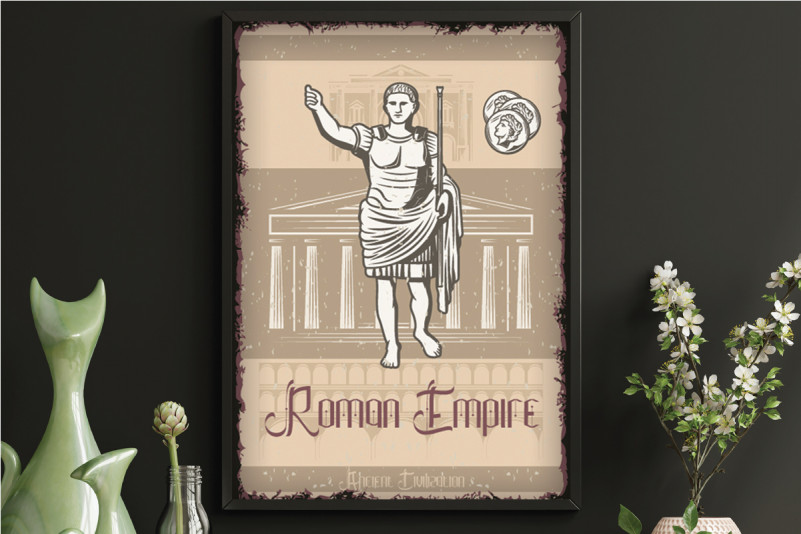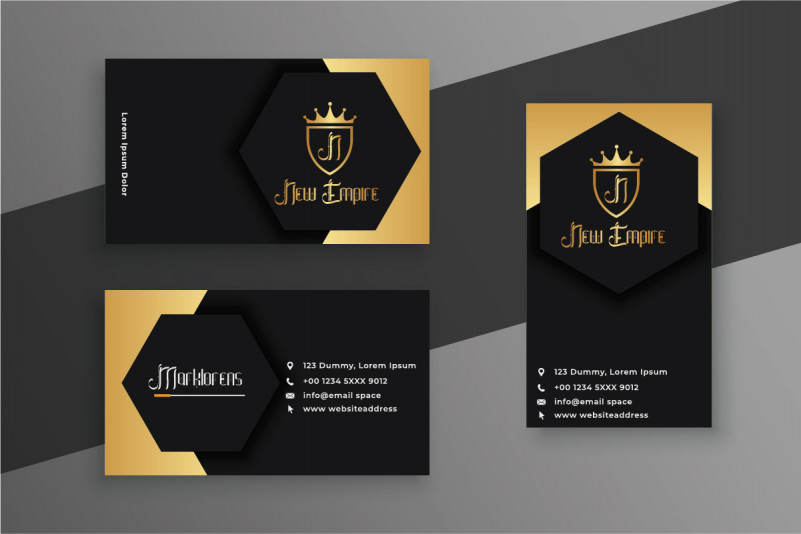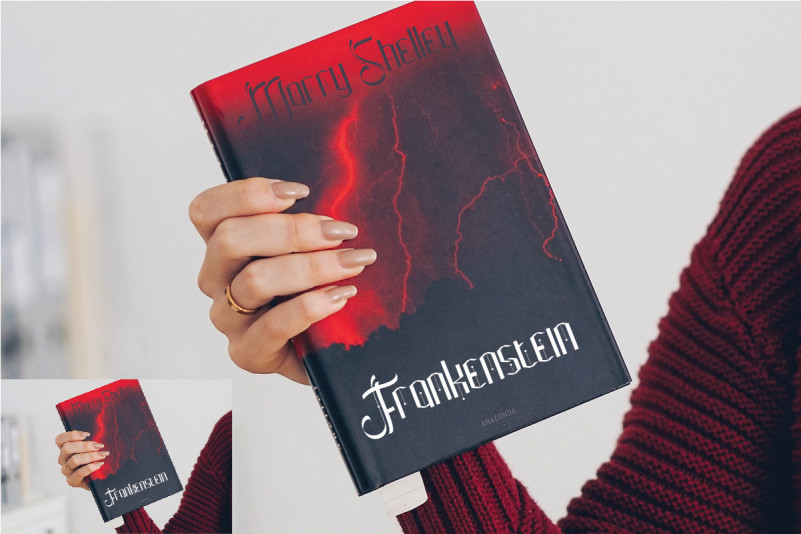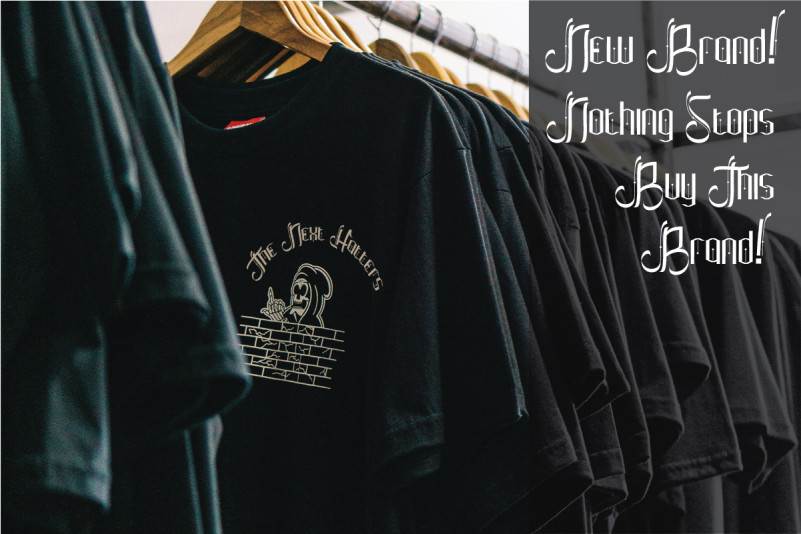
The Empire Font
The Empire Display Font
This is a stylish display font inspired from Medieval Era. It has beautiful, fresh, elegant, natural and stylish glyphs. The Empire Medieval Font will be perfect for branding, logo, photography and headlines etc. It is so elegant, classy, strong and unique.